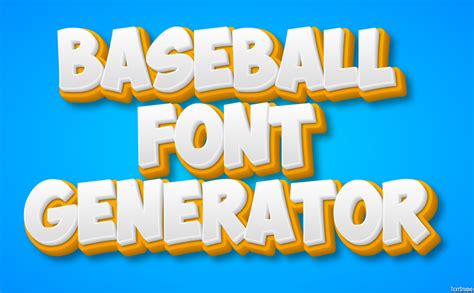
IClassic Baseball Font Generator: Create Custom Text!
iClassic Baseball Font Generator: Create Custom Text!
Hey there, sports fans and design enthusiasts! Ever wanted to create your own baseball-themed graphics with that classic, vintage look? Well, you’re in luck! With the iClassic baseball font generator , you can easily whip up amazing text designs that scream home run . Whether you’re designing a logo for your little league team, creating a personalized banner, or just adding some sporty flair to your social media posts, this tool is a game-changer. Let’s dive into what makes this font generator so cool and how you can make the most of it.
What is the iClassic Baseball Font?
The iClassic baseball font , often characterized by its bold, slightly rounded letters and a touch of vintage charm, is a design staple in the world of sports graphics. Think of those classic baseball jerseys and team logos – that’s the vibe we’re talking about! This font style evokes a sense of nostalgia and tradition, making it perfect for projects that aim to capture the spirit of America’s favorite pastime. With its roots deeply embedded in the history of baseball, the iClassic font brings a sense of authenticity and timelessness to any design.
Whether you’re a seasoned designer or just starting out, the appeal of the iClassic baseball font lies in its versatility and readability. The bold letters ensure that your message stands out, while the slightly rounded edges add a touch of friendliness and approachability. This makes it ideal for a wide range of applications, from team merchandise and promotional materials to personalized gifts and social media graphics. Moreover, the font’s clean lines and well-defined shapes make it easy to work with, even for those with limited design experience.
One of the key reasons why the iClassic baseball font remains so popular is its ability to instantly transport viewers to the ballpark. The font’s association with iconic baseball imagery evokes feelings of excitement, camaraderie, and tradition. This emotional connection can be a powerful asset when designing logos, posters, or any other visual communication intended to resonate with baseball fans. By tapping into the shared love of the game, the iClassic font helps to create a sense of belonging and pride. It’s no wonder that so many designers and marketers continue to rely on this classic typeface to capture the hearts and minds of their target audience.
Key Features of an iClassic Baseball Font Generator
So, what can you expect from a top-notch iClassic baseball font generator ? Here are some must-have features:
• Customizable Text: Obviously, you need to be able to enter your own text! Look for a generator that allows you to type in any word or phrase you want.
• Font Variations: A good generator might offer different styles within the iClassic family, such as bold, italic, or even distressed versions for a more vintage look.
• Color Options: Color is key! Make sure you can change the color of the text and background to match your team’s colors or your project’s aesthetic.
• Size Adjustment: Being able to adjust the size of the text is crucial for fitting your design perfectly.
• Preview Feature: A live preview is a lifesaver! It lets you see exactly how your text will look before you commit to downloading it.
• User-Friendly Interface: No one wants to struggle with a complicated tool. A clean, intuitive interface makes the design process smooth and enjoyable.
These features combine to provide a seamless design experience, allowing you to bring your creative vision to life with ease and precision. With customizable text, you can personalize your designs to suit any occasion, whether it’s creating a team logo or designing a unique banner. Font variations offer even more creative possibilities, allowing you to experiment with different styles to find the perfect look for your project. The ability to change colors is essential for matching your team’s colors or creating a cohesive design scheme. And with size adjustment, you can ensure that your text fits perfectly into any space.
Moreover, the inclusion of download options in various formats ensures that you can use your designs across multiple platforms and applications without sacrificing quality. The preview feature allows you to fine-tune your design in real-time, ensuring that every detail is just right before you finalize your creation. And last but not least, a user-friendly interface makes the entire process accessible to designers of all skill levels. Whether you’re a seasoned professional or just starting out, you’ll find that these features make the iClassic baseball font generator a valuable tool in your design arsenal.
How to Use an iClassic Baseball Font Generator: A Step-by-Step Guide
Alright, let’s get down to brass tacks. Here’s how to use an iClassic baseball font generator :
1. Find a Generator: Do a quick search online for “iClassic baseball font generator.” There are plenty of free and paid options available. Make sure the site looks reputable before you start entering any information.
2. Enter Your Text: Once you’ve found a generator you like, look for the text input field. Type in the word or phrase you want to stylize.
3. Customize Your Design: This is where the fun begins! Play around with the different options. Change the font style, color, size, and any other available settings until you get the look you want.
4. Preview Your Creation: Take advantage of the preview feature to see how your text will look in real-time. Make any necessary adjustments.
5. Download Your Design: Once you’re happy with your design, click the download button. Choose the file format you prefer (PNG, JPG, SVG, etc.) and save the file to your computer.
6. Use Your Design: Now you can use your newly created graphic in your projects! Add it to your website, social media posts, banners, logos, or anything else you can think of.
By following these simple steps, you can quickly and easily create stunning baseball-themed graphics that will impress your audience. The key to success lies in experimenting with different options and finding the combination that best suits your needs. Don’t be afraid to try out different font styles, colors, and sizes until you achieve the desired effect. And remember to take advantage of the preview feature to ensure that your design looks perfect before you download it. With a little bit of creativity and patience, you can create professional-quality graphics that will make your projects stand out from the crowd.
Tips for Creating Awesome Baseball Graphics
Want to take your baseball graphics to the next level? Here are some pro tips:
• Choose the Right Colors: Stick to classic baseball colors like red, white, blue, and navy. These colors evoke a sense of tradition and authenticity.
• Add a Background: A simple background can make your text pop. Consider using a baseball diamond, a stadium, or even just a solid color that complements your text.
• Incorporate Baseball Elements: Add baseball-related images like bats, balls, gloves, or helmets to your design. These elements will reinforce the baseball theme.
• Use High-Quality Images: If you’re using any images in your design, make sure they’re high-resolution and look professional.
• Keep it Simple: Don’t overcomplicate your design. Sometimes, less is more. A clean, simple design can be more effective than a cluttered one.
• Consider the Context: Think about where your graphic will be used and design accordingly. A graphic for a website might need to be different than a graphic for a banner.
By following these tips, you can create baseball graphics that are both visually appealing and effective in communicating your message. Remember to pay attention to detail and to always strive for quality in your designs. Whether you’re creating a logo for your team, designing a promotional poster, or simply adding some baseball flair to your social media posts, these tips will help you create graphics that stand out from the crowd. So go ahead and unleash your creativity, and let your passion for baseball shine through in your designs.
Examples of iClassic Baseball Font in Action
To give you some inspiration, here are a few examples of how the iClassic baseball font can be used:
• Team Logos: Create a classic logo for your baseball team with the team name in the iClassic font.
• Jersey Designs: Add player names and numbers to jerseys using the iClassic font for a traditional look.
• Banners and Posters: Design eye-catching banners and posters for games and events with bold iClassic text.
• Social Media Graphics: Create engaging social media posts with baseball-themed quotes and graphics using the iClassic font.
• Personalized Gifts: Customize baseballs, bats, or other items with names or messages in the iClassic font for a unique gift.
These examples demonstrate the versatility of the iClassic baseball font and its ability to enhance a wide range of designs. Whether you’re creating promotional materials for a professional baseball team or designing personalized gifts for friends and family, the iClassic font can help you achieve a classic and timeless look. So don’t be afraid to experiment with different applications and find new ways to incorporate this iconic typeface into your projects. With a little bit of creativity, you can create designs that are both visually appealing and deeply meaningful.
Conclusion: Step Up to the Plate!
The iClassic baseball font generator is a fantastic tool for anyone looking to create authentic, vintage-style baseball graphics. With its customizable features and user-friendly interface, it’s easy to create stunning designs that capture the spirit of the game. So, what are you waiting for? Step up to the plate and start creating your own iClassic baseball graphics today!
So there you have it, folks! With the iClassic baseball font generator , you’re all set to knock your design projects out of the park. Whether you’re a seasoned pro or just starting, have fun experimenting and creating some truly awesome baseball-themed graphics. Play ball!